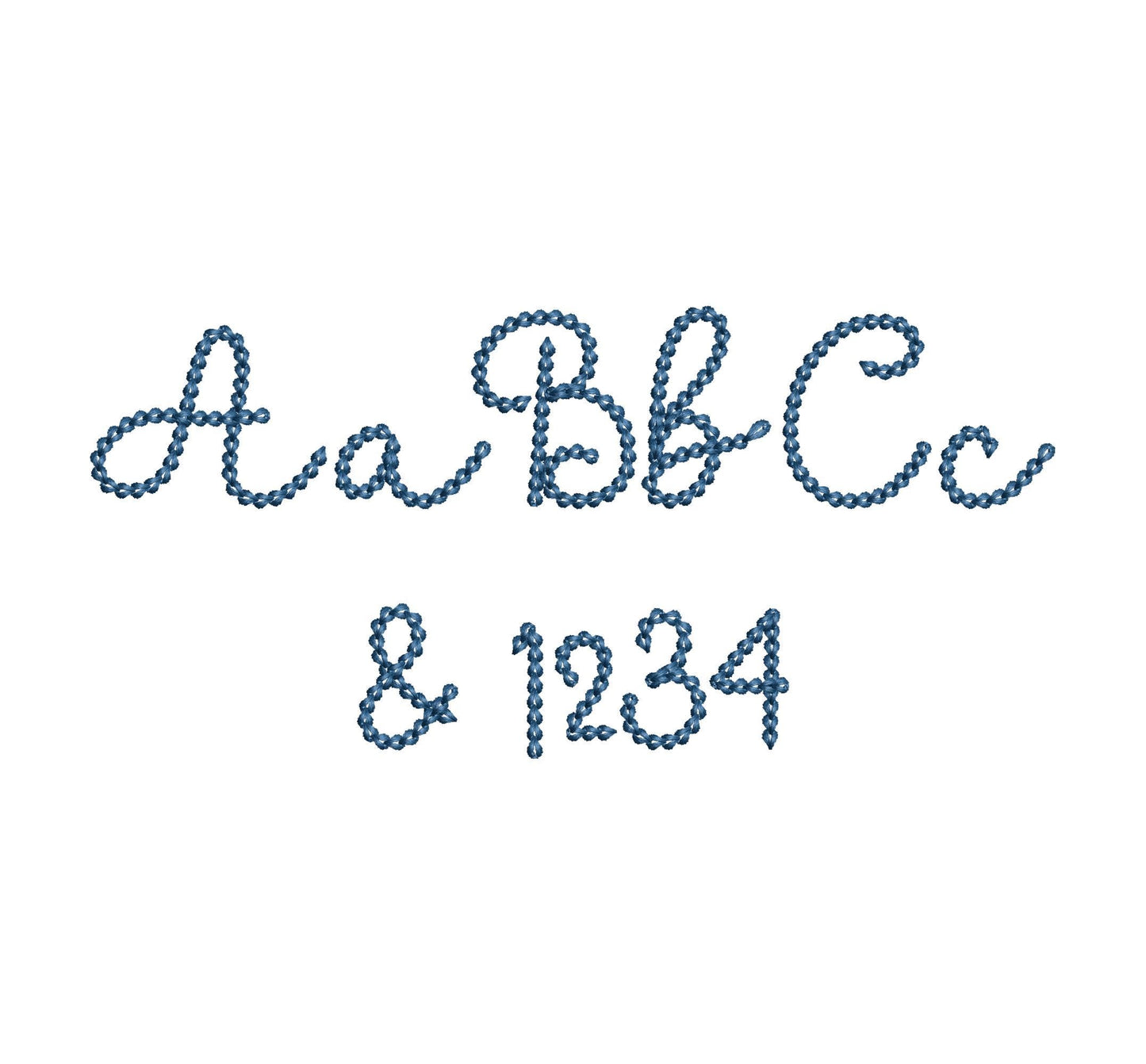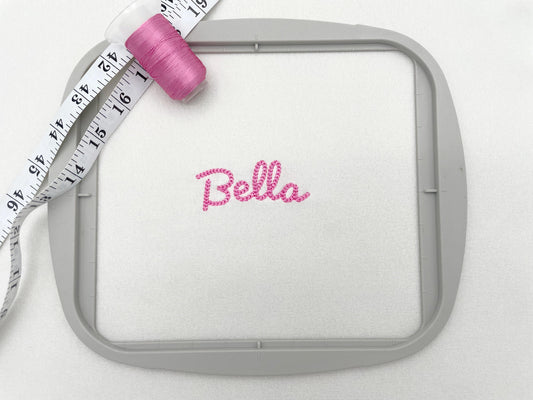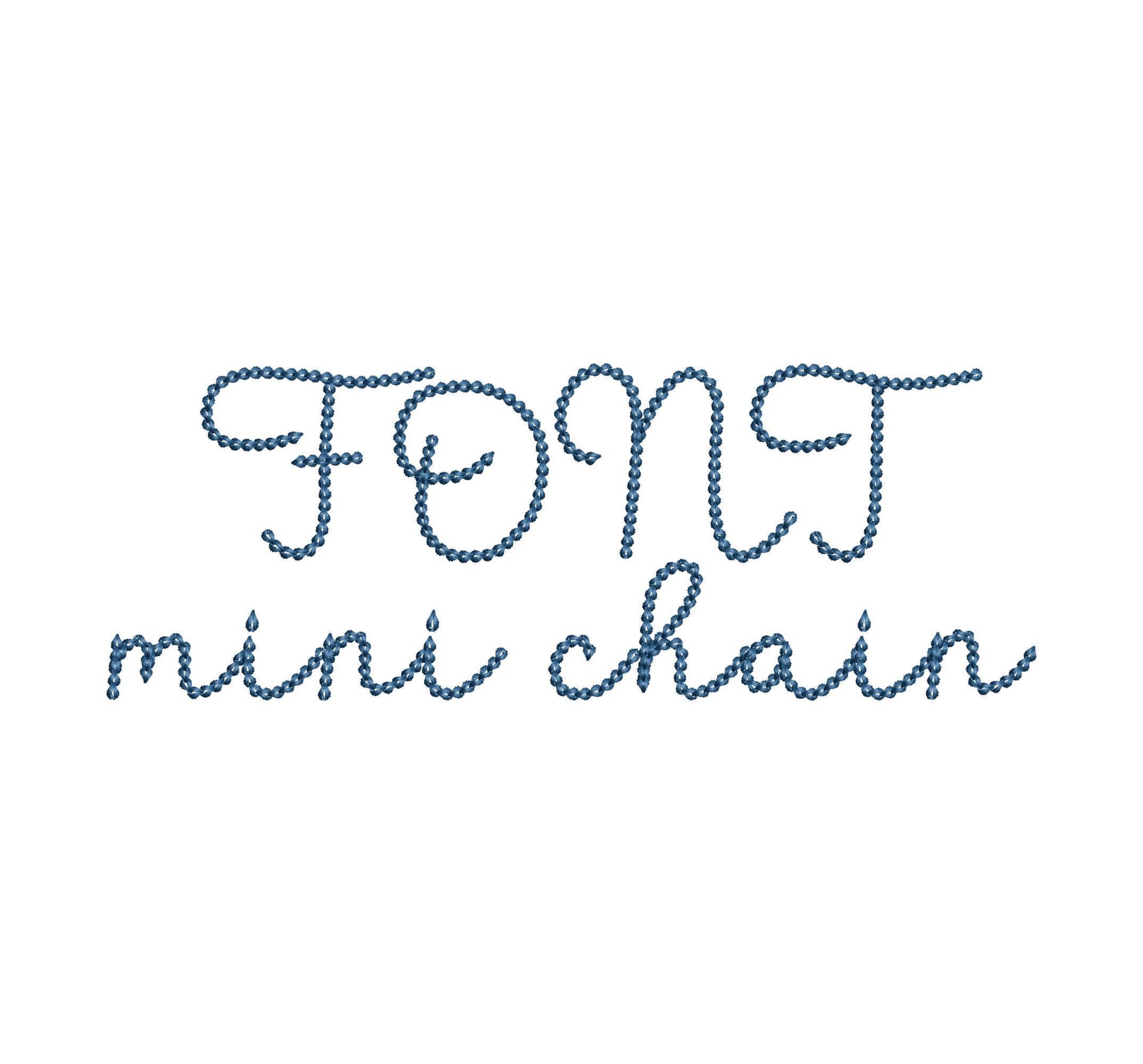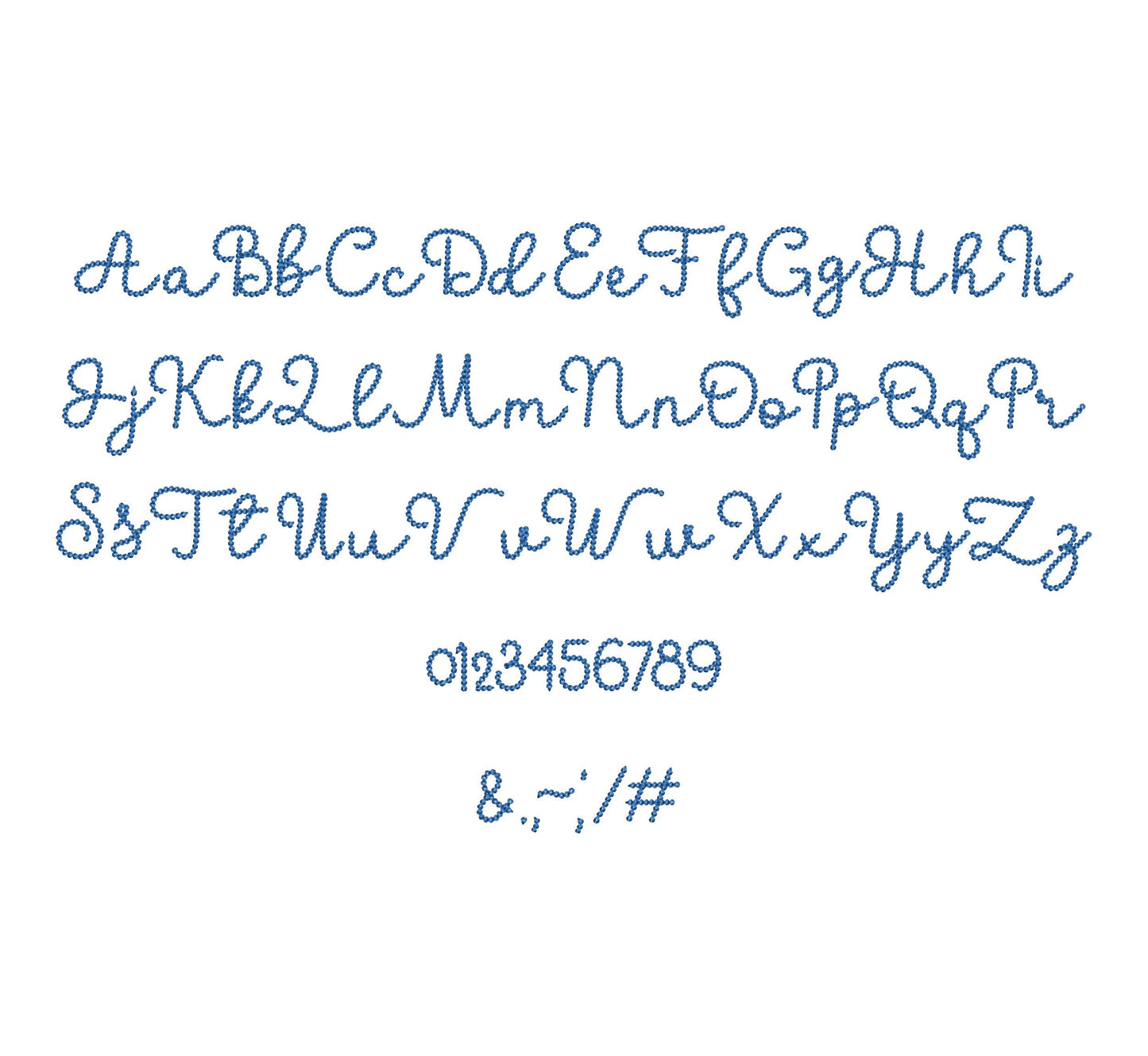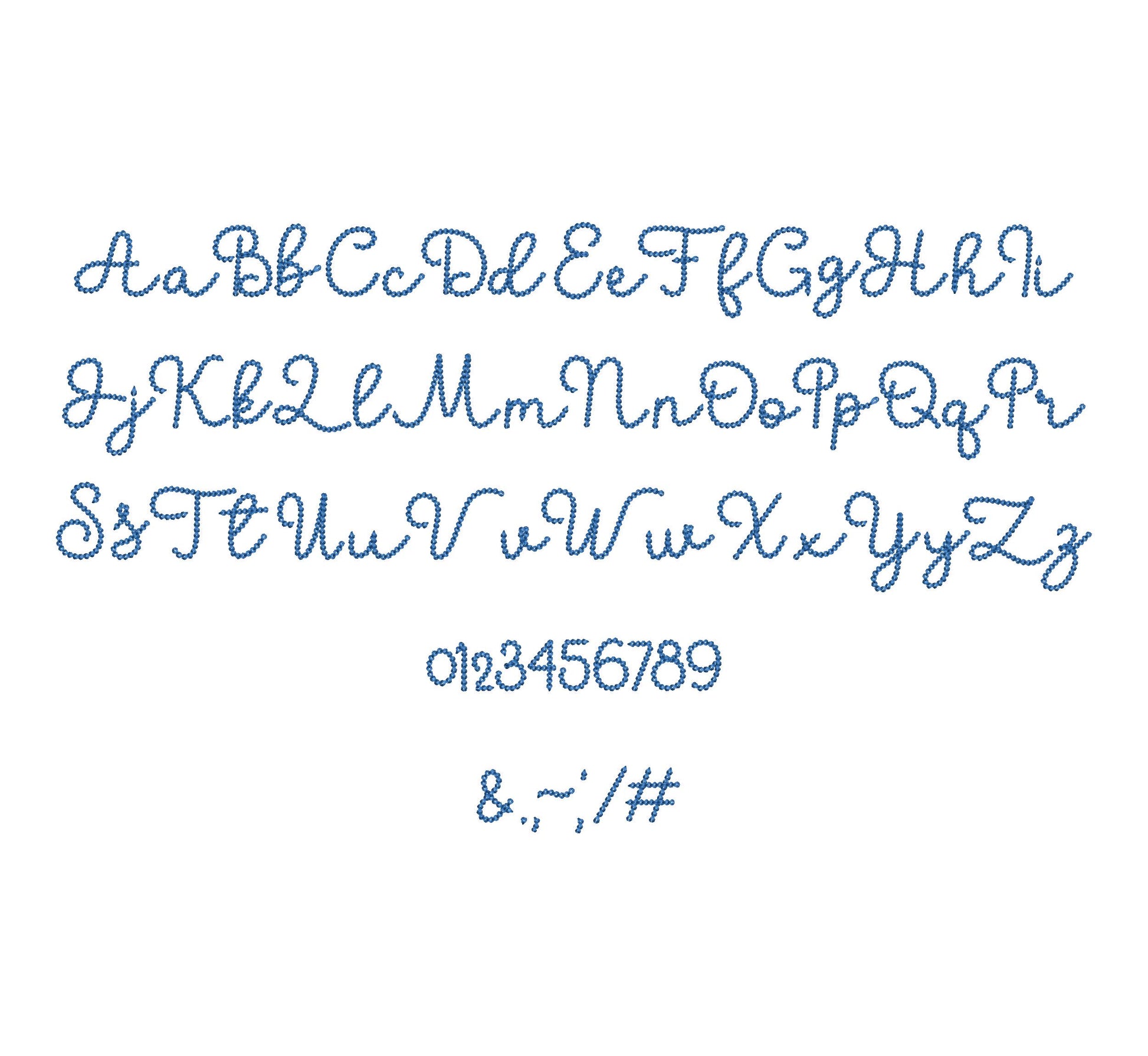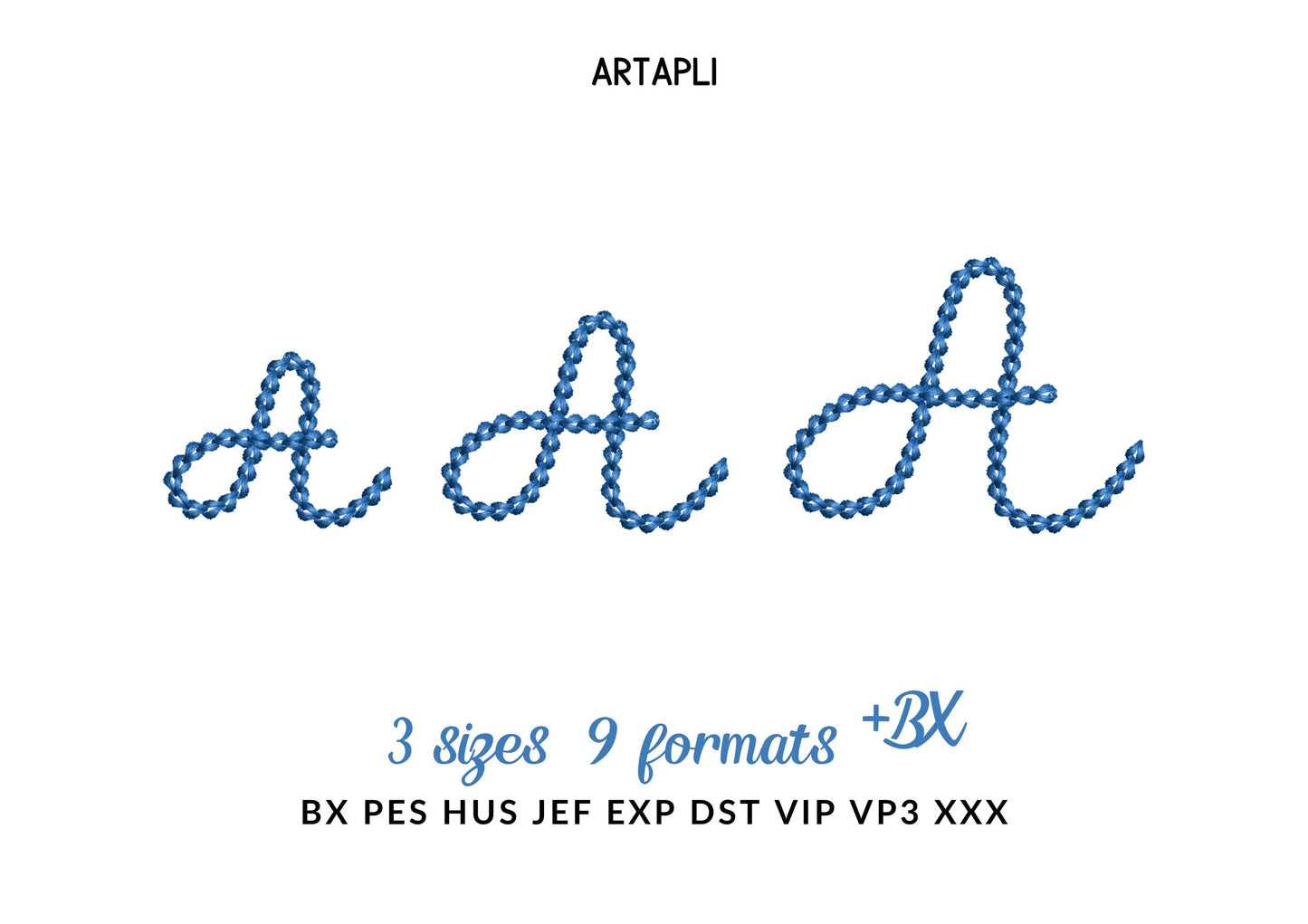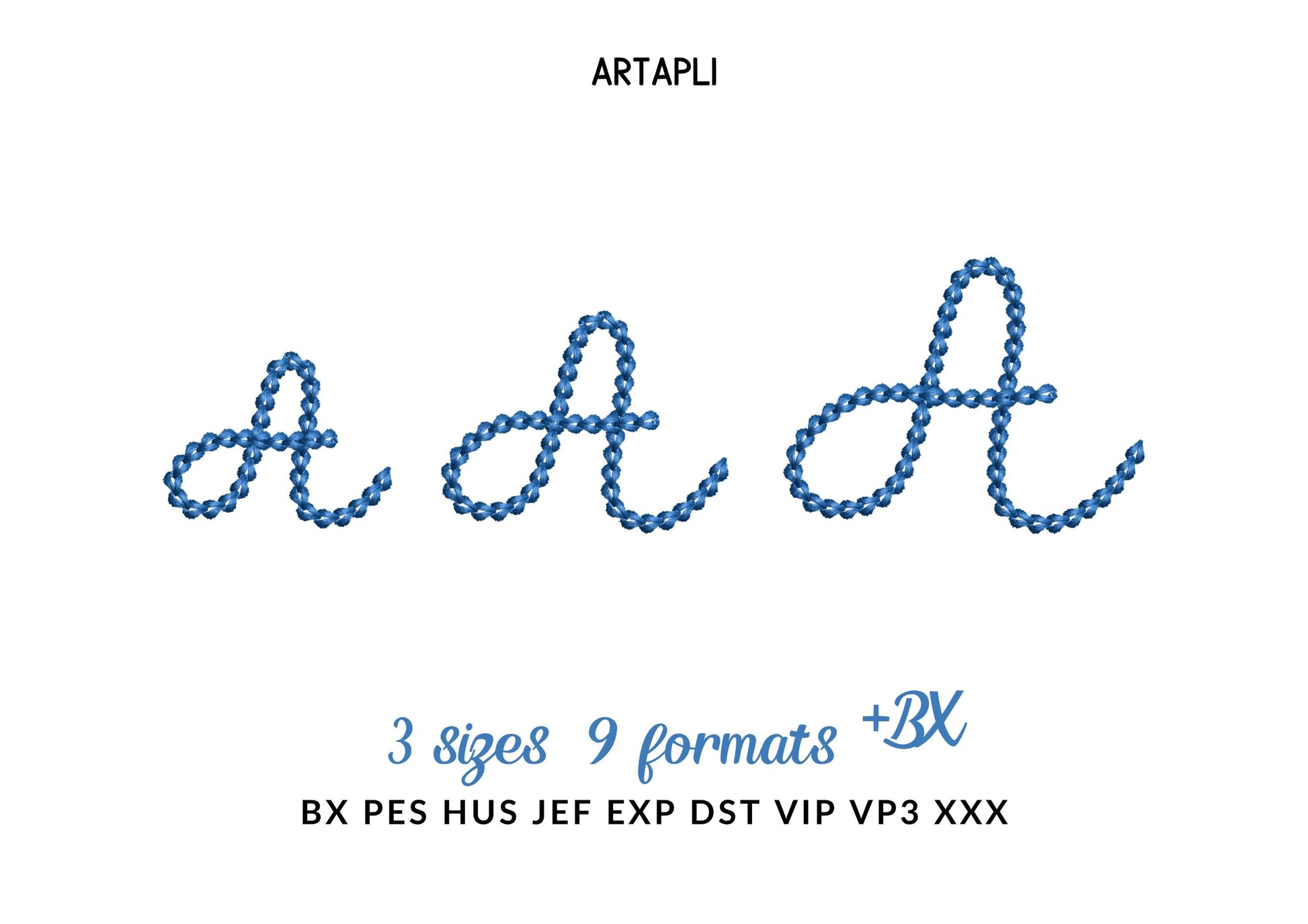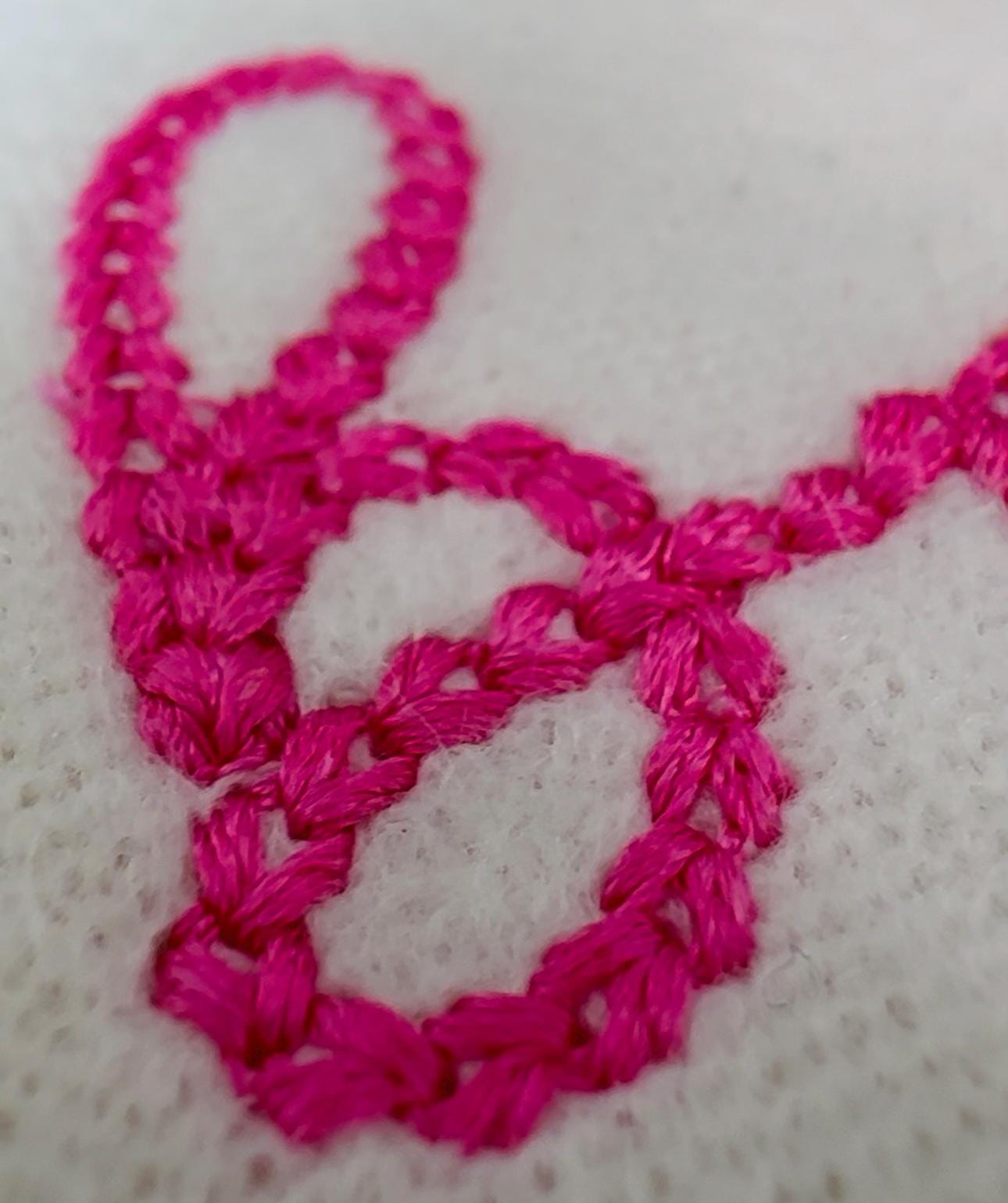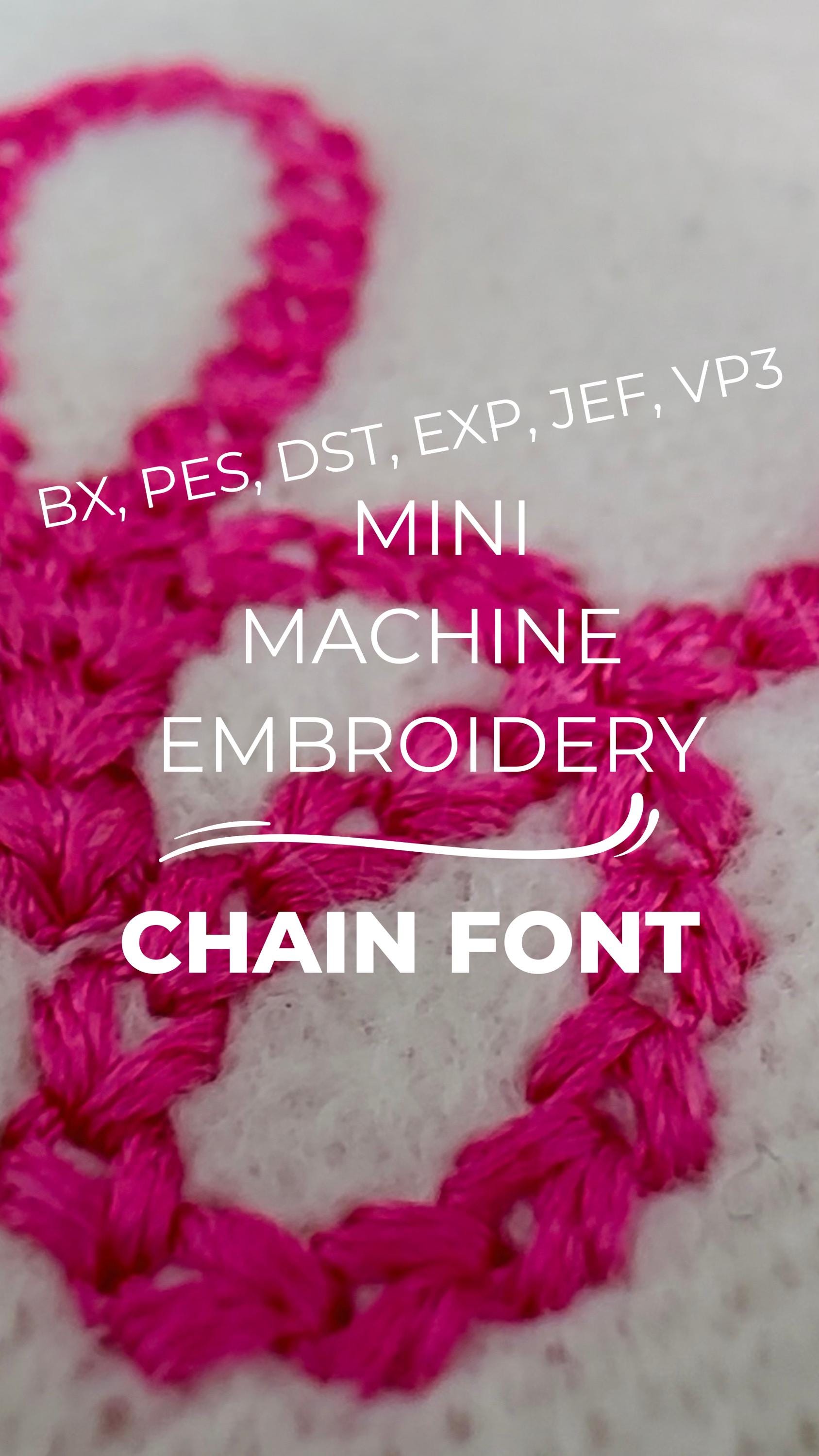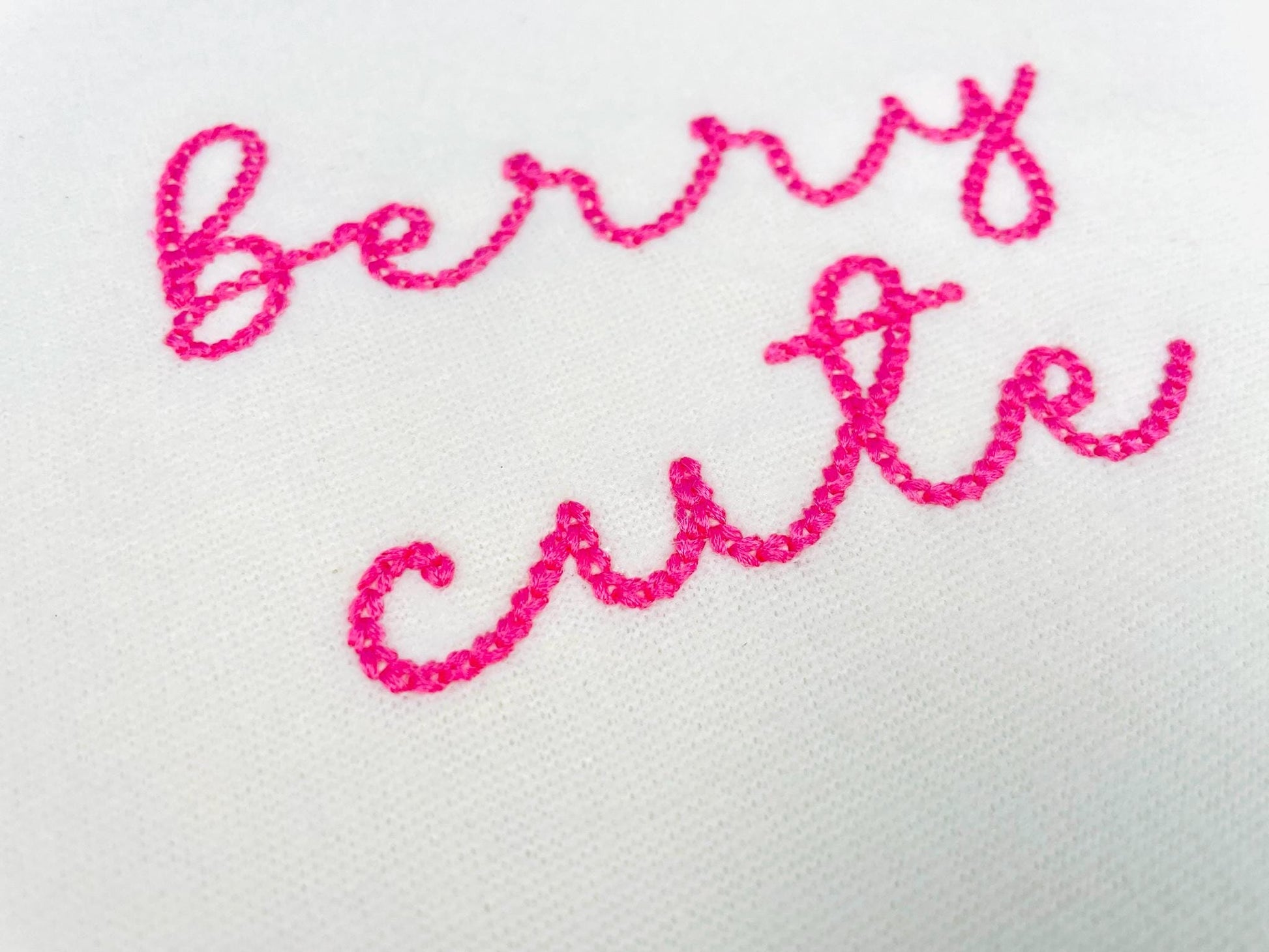
Extra Bold Tiny Chain Font Bubbly
Or click to open the linkA bubbly, extra bold chain stitch script font in tiny sizes. Made for kids' and baby names on small spots like collars, cuffs and pockets.
The letters come in three mini sizes: 1, 1.3 and 1.6 inches. A thick, rounded chain stitch gives the handwriting a soft, bubbly look. Includes uppercase and lowercase letters A to Z, numbers 0 to 9 and punctuation.
- Extra bold chain stitch script font